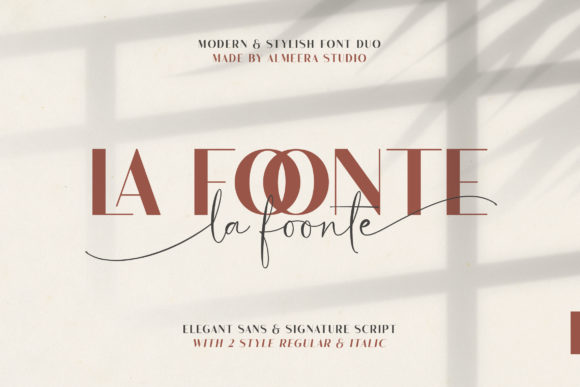
Introduce your project with a bang! Capture the essence of your unique font and paint a vivid picture of its extraordinary qualities.
With La Foonte, prepare to embark on a typographical adventure that will redefine your creative horizons. This captivating display font duo is meticulously crafted to ignite your imagination and elevate your designs to new heights.
Immerse yourself in the boundless possibilities of La Foonte, where you'll discover a treasure trove of alternate glyphs and ligatures just waiting to be explored. Unleash your creativity and craft enchanting logos, captivating invitations, and heartfelt signatures that will leave a lasting impression on all who behold them.
But La Foonte's magic doesn't end there. It's a font that's as versatile as it is beautiful, seamlessly adapting to a myriad of creative endeavors. Whether you're designing for branding, crafting exquisite invitations, or simply adding a touch of elegance to your personal projects, La Foonte will effortlessly elevate your creations.
So why settle for ordinary fonts when you can embrace the extraordinary? Experience the transformative power of La Foonte today and unlock a world of typographical wonders. Let your imagination soar, and prepare to be captivated by the beauty and versatility of this remarkable font duo.